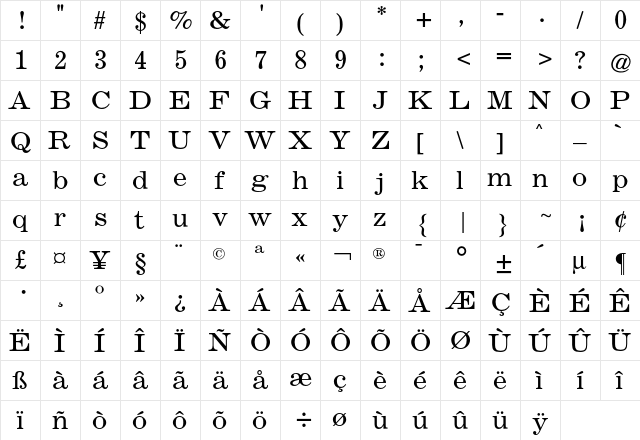
Claire News CG Light Regular
Design Context for Claire News CG Light Typeface
Claire News CG Light is a composed and adaptable typeface that performs quietly and consistently across a wide range of design contexts. Its slender proportions lend an understated elegance to any composition.